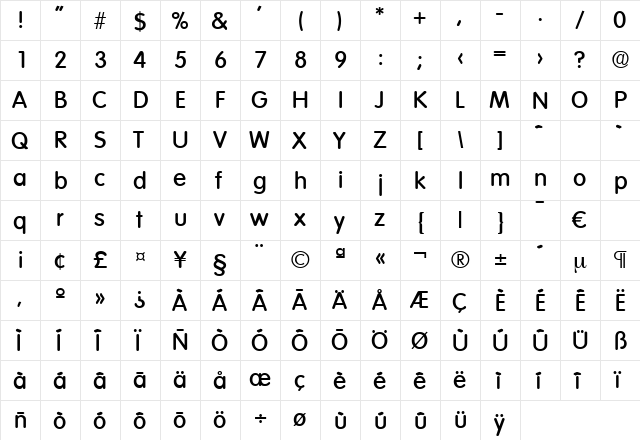
Volkswagen-Medium Regular
Design Context for Volkswagen-Medium Typeface
Volkswagen-Medium offers clean, dependable letterforms without strong stylistic allegiance, making it a practical choice for designers who need flexibility.
Pro Tip: Use Volkswagen-Medium in both headline and body roles to test its range before committing to a single application.